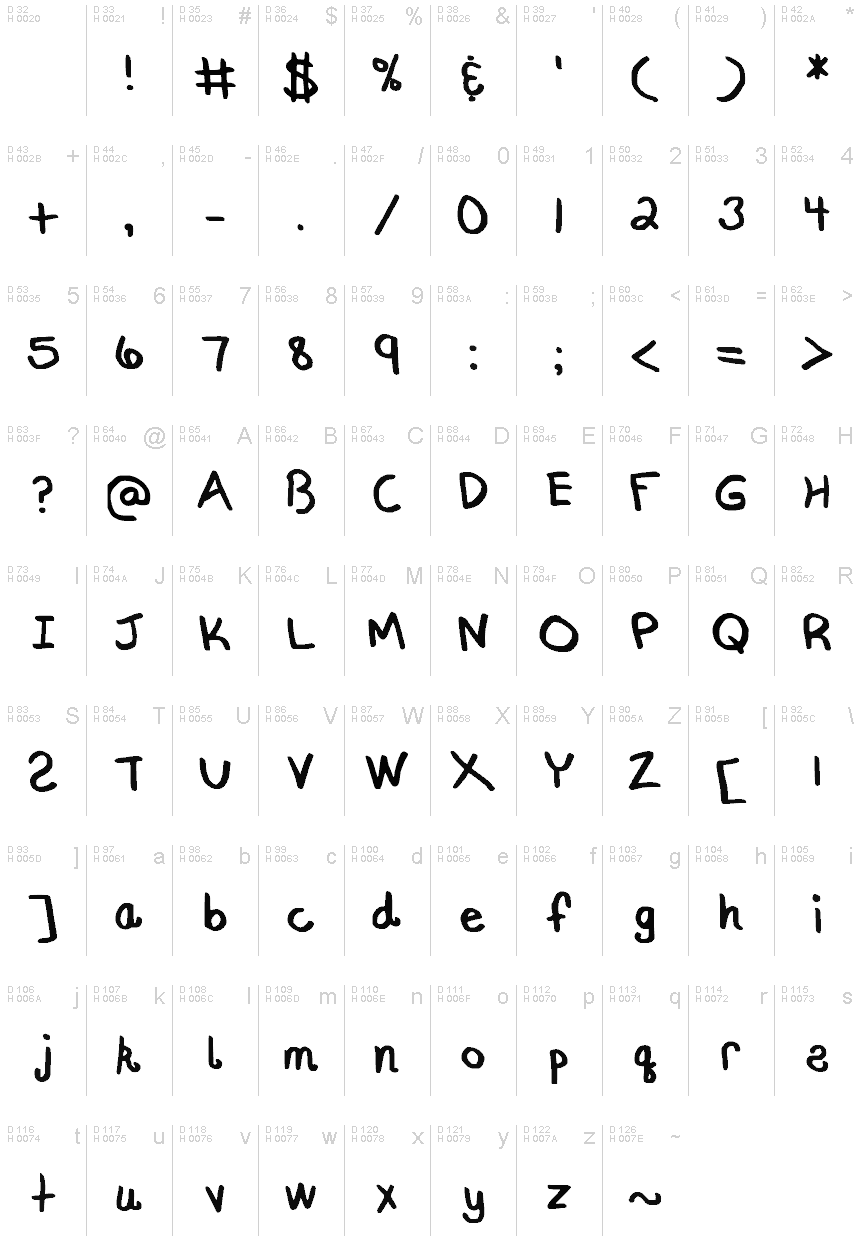
LemonadeStand
The Lemonade Stand font exudes a charming, playful spirit that immediately captivates the eye. Crafted by the talented designer Genna Boyer, this handwritten typeface boasts a distinctive flair, with its dynamic strokes and organic curves evoking a sense of casual elegance. Each letter carries a unique personality, seamlessly blending whimsy and sophistication, making Lemonade Stand a delightful choice for a wide range of design projects.
This font's versatility shines through, lending itself beautifully to branding and packaging designs, particularly for products or services with a youthful, artisanal appeal. Lemonade Stand's warm and inviting aesthetic also makes it an excellent selection for greeting cards, stationery, and print materials that aim to convey a personal, handcrafted touch. Whether you're crafting a charming logo, crafting an eye-catching poster, or curating a visually striking editorial layout, the Lemonade Stand font by Genna Boyer is sure to add a touch of endearing character to your design.
A Font for the Kid in You!
Ever wanted a font that looks like it's from a child? Lemonade Stand is the font for you! With a silly backwards "S," your grandma will think it's from back when you were a kid.
This font's versatility shines through, lending itself beautifully to branding and packaging designs, particularly for products or services with a youthful, artisanal appeal. Lemonade Stand's warm and inviting aesthetic also makes it an excellent selection for greeting cards, stationery, and print materials that aim to convey a personal, handcrafted touch. Whether you're crafting a charming logo, crafting an eye-catching poster, or curating a visually striking editorial layout, the Lemonade Stand font by Genna Boyer is sure to add a touch of endearing character to your design.
A Font for the Kid in You!
Ever wanted a font that looks like it's from a child? Lemonade Stand is the font for you! With a silly backwards "S," your grandma will think it's from back when you were a kid.